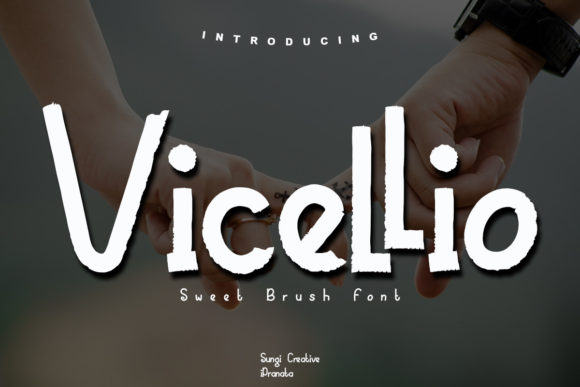
Unleash the Charm and Simplicity of Vicello: The Script Font That Captures Hearts
Step into the world of Vicello, a captivating script font that exudes charm and simplicity. Designed by the talented SungiCreative, this handwritten font is a symphony of elegance and ease, promising to transform your creative visions into captivating realities. With its informal style and casual vibe, Vicello is the perfect choice for projects seeking a relaxed and inviting touch.
Dive into the versatility of Vicello, a font that effortlessly adapts to a myriad of design endeavors. Whether you're crafting heartfelt invitations, adding a personal touch to your branding, or seeking to infuse your social media posts with a dash of individuality, Vicello stands ready to elevate your creations to new heights.
Discover the power of Vicello's tiny text prowess. Its meticulously crafted characters maintain their integrity even at the smallest sizes, ensuring your messages remain legible and impactful across various platforms. Unleash your creativity without boundaries, knowing that Vicello will faithfully convey your thoughts and ideas, no matter how intricate or delicate.
With its inherent charm and unwavering adaptability, Vicello promises to be your go-to font for projects seeking a touch of warmth and authenticity. Its ability to effortlessly blend with other design elements ensures harmonious integration into your existing projects, while its versatility empowers you to explore endless creative possibilities.
Embrace the allure of Vicello, the script font that captivates hearts with its unassuming grace and endless versatility. Let its charming characters add a touch of magic to your creative endeavors, transforming them into works of art that resonate with your audience.